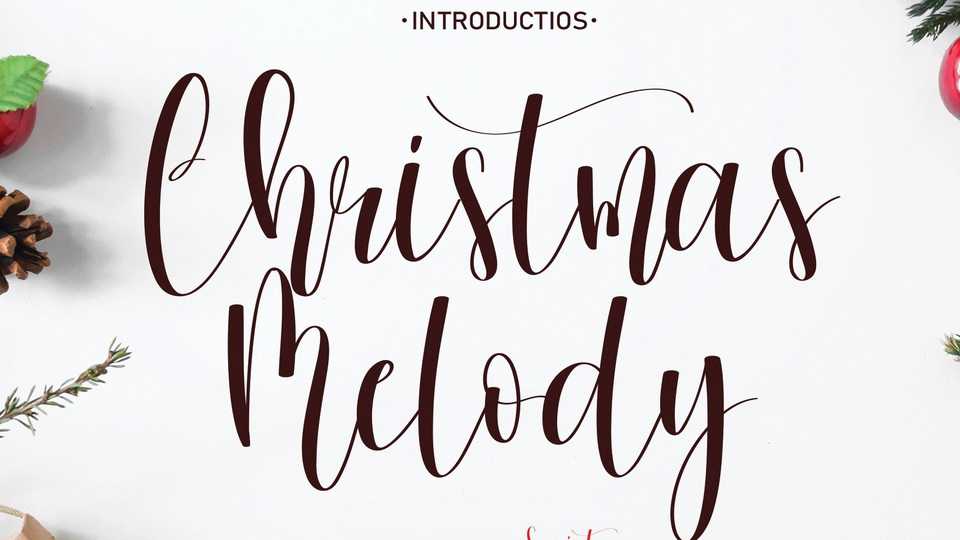
Download Christmas Melody font, a beautiful and stylish script typeface with a smooth and natural flow. Christmas Melody is perfect for fashion branding or editorial designs.